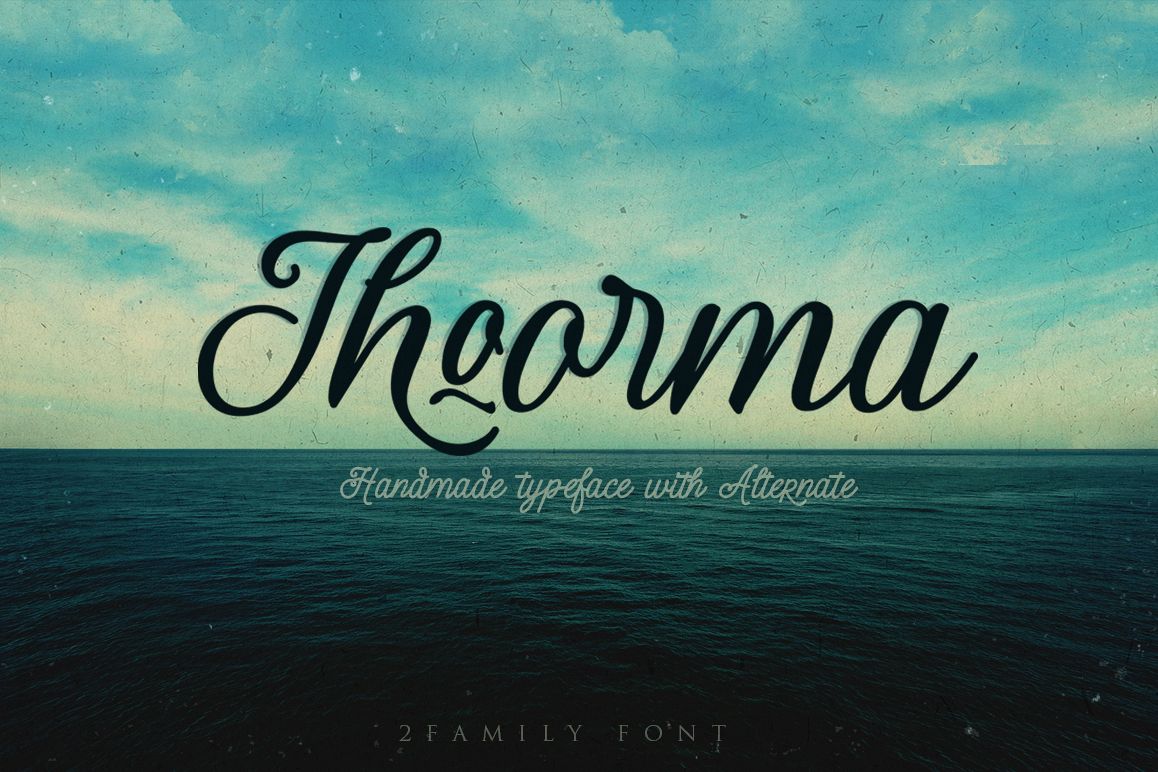
Thoorma 2 Family font
Thoorma boeleud.
Thoorma.
Thoorma is handlettring font specifically designed with a variety of alternate, ideal for posters, t shirts, typography, writing etc.
Duo family font